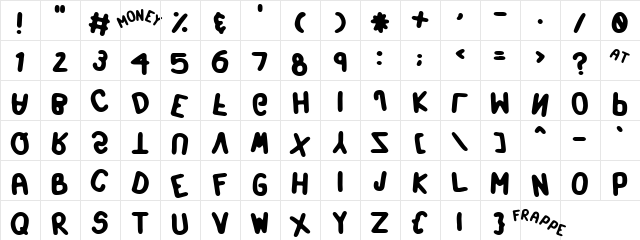
Pineapple Drops Regular
Design Context for Pineapple Drops
Pineapple Drops is a composed and adaptable typeface that performs quietly and consistently across a wide range of design contexts.
Pro Tip: Use Pineapple Drops in both headline and body roles to test its range before committing to a single application.